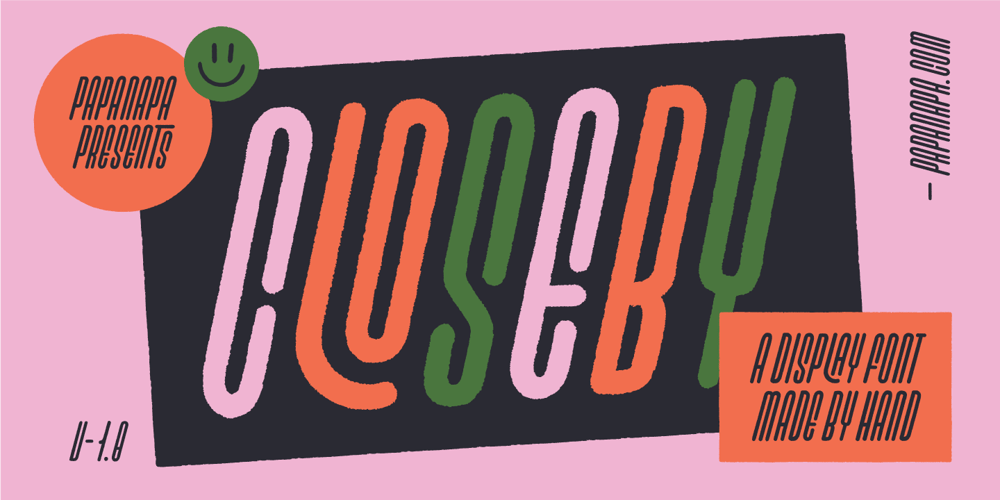
Closeby Font Family was designed by Thiago Bellotti and published by Papanapa. Closeby contains 1 styles and family package options. Closeby is friendly, cheerful, and extremely addictive! Closeby is a hand-drawn display font with more than 80 ligatures and a curious personality. Designed for big titles, its ultra-condensed style works as a unicase and fills the spaces with visually unique typographic compositions. Perfect for packaging, posters, food and drink menus, or book covers, its gravitational point varies between cases, and can be used in all uppercase, all lowercase, or mixing the two to obtain restless and sparkling results. Closeby has support for Western Europe and more than 65 languages.